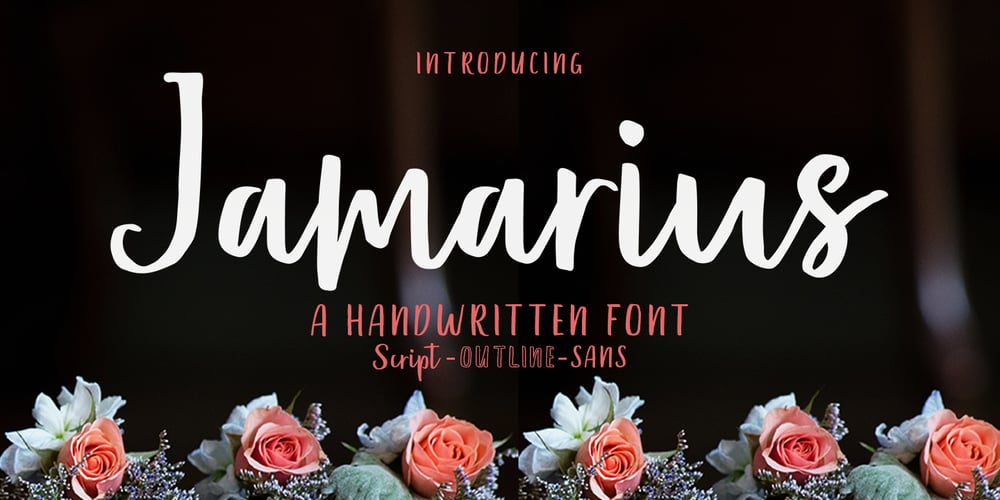
Jamarius Script Font Trio Font Family was designed by Mur Zani and published by Zane Studio. Jamarius Script Font Trio contains 3 styles and family package options. Jamarius Script – This handwritten font is a new modern script with an irregular base line. Trendy and feminine. Jamarius Script looks beautiful in wedding invitations, thank you cards, quotes, greeting cards, logos, business cards, and more. Perfect for use in ink or watercolors. Including beginning and end letters, alternatives and support for many languages.